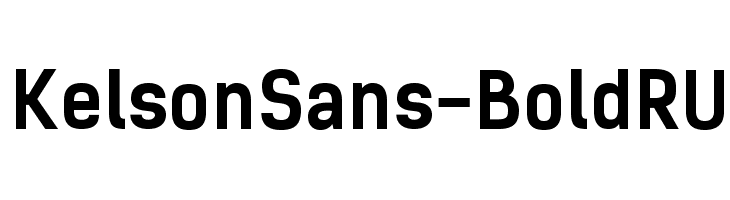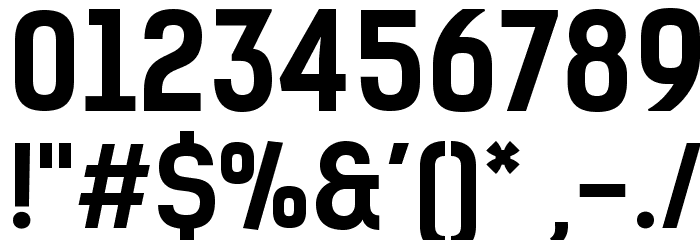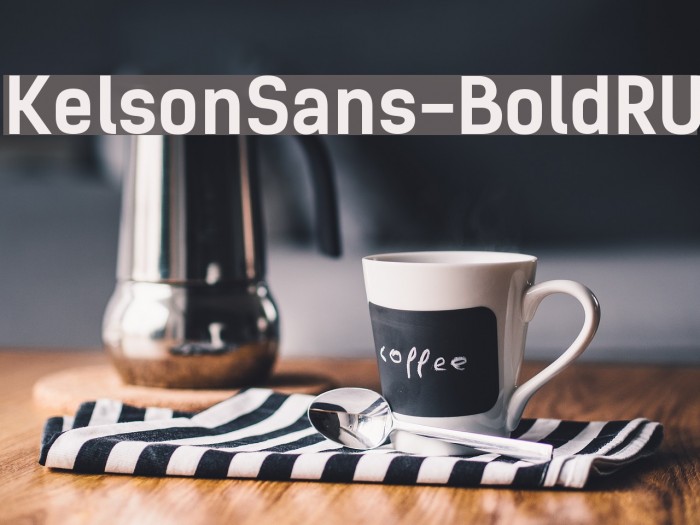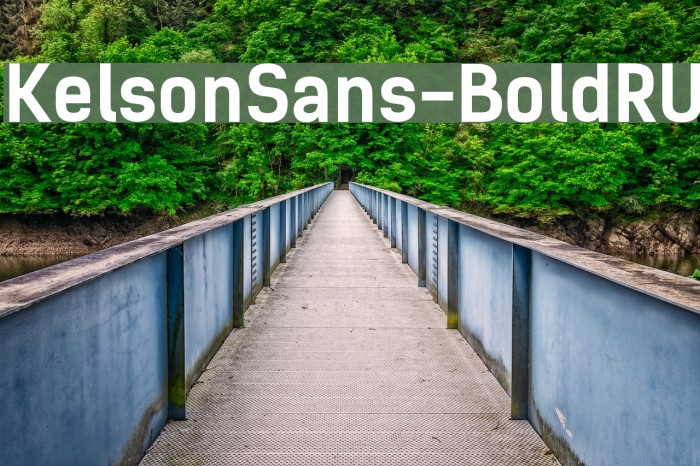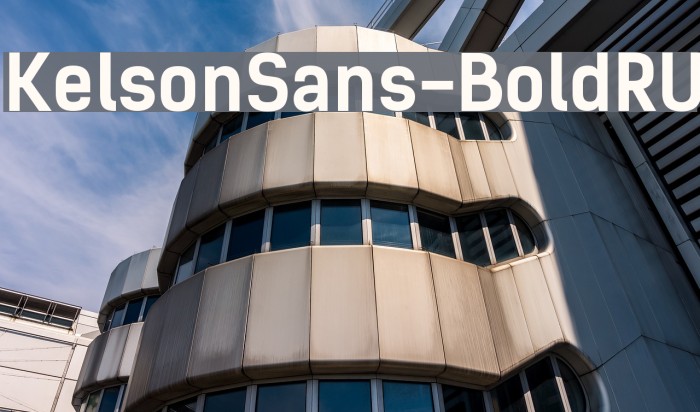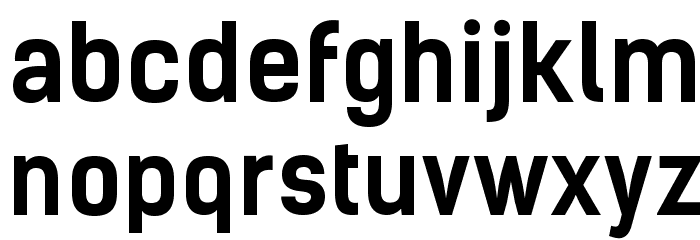
KelsonSans-BoldRU Font
This font showcases a clean and modern sans-serif style with bold, uniform strokes. The characters are well-balanced, featuring a geometric structure that provides a sense of stability and clarity. The uppercase letters are strong and assertive, while the lowercase letters maintain a consistent and harmonious appearance. The numerals are clear and easily distinguishable, making them suitable for various applications. Special characters are included and are designed to complement the overall aesthetic. This font is versatile, offering a professional and contemporary look that can be adapted to a wide range of design projects.
A bold, modern sans-serif font with a clean and geometric design.
• Proposed Projects: Ideal for branding, advertising, web design, and editorial projects where a modern and bold statement is needed.